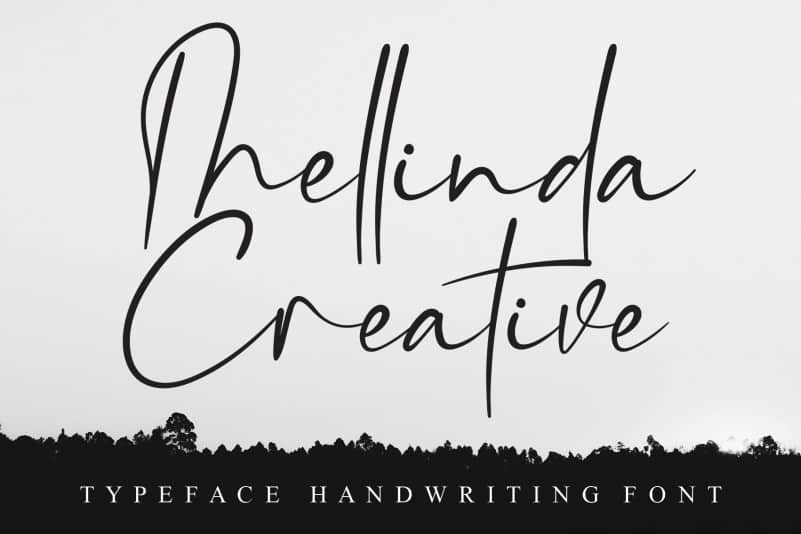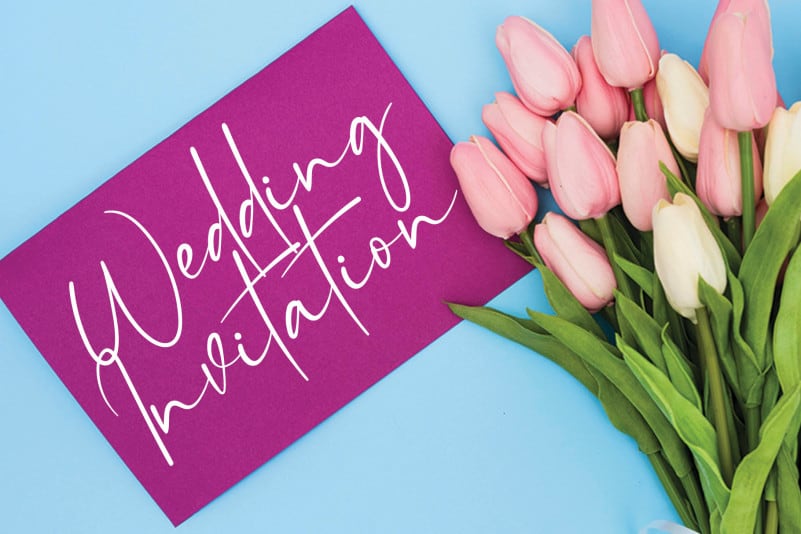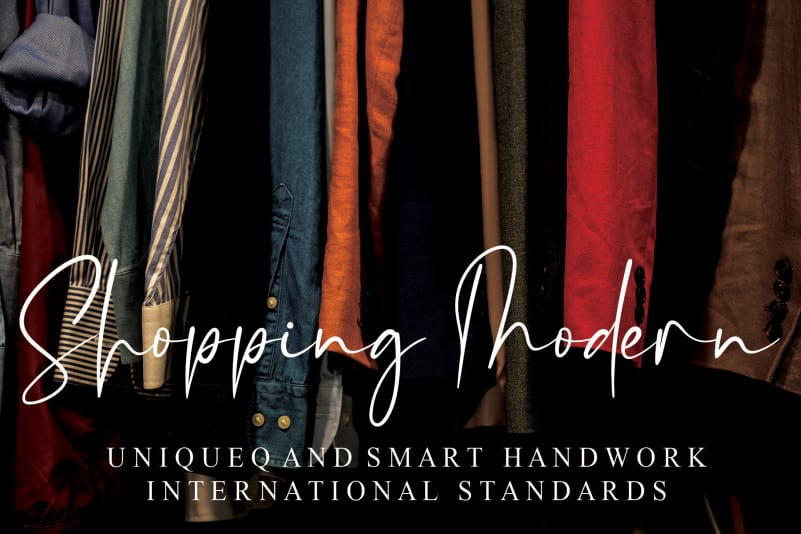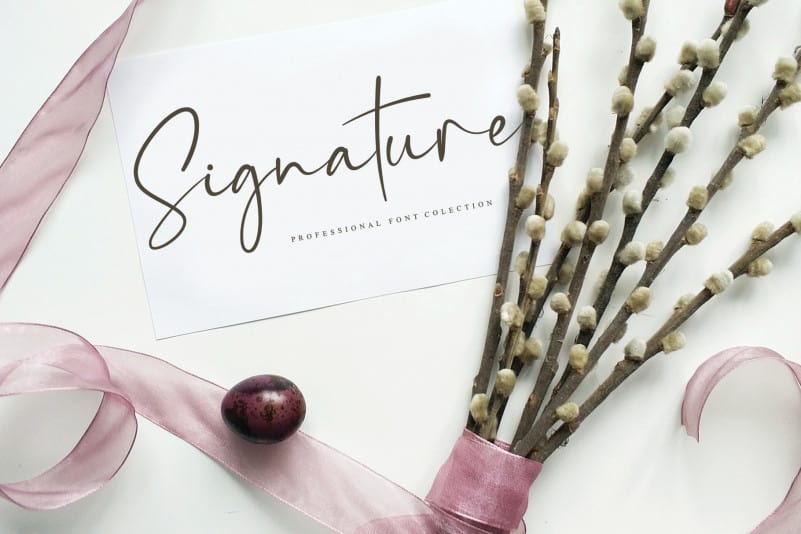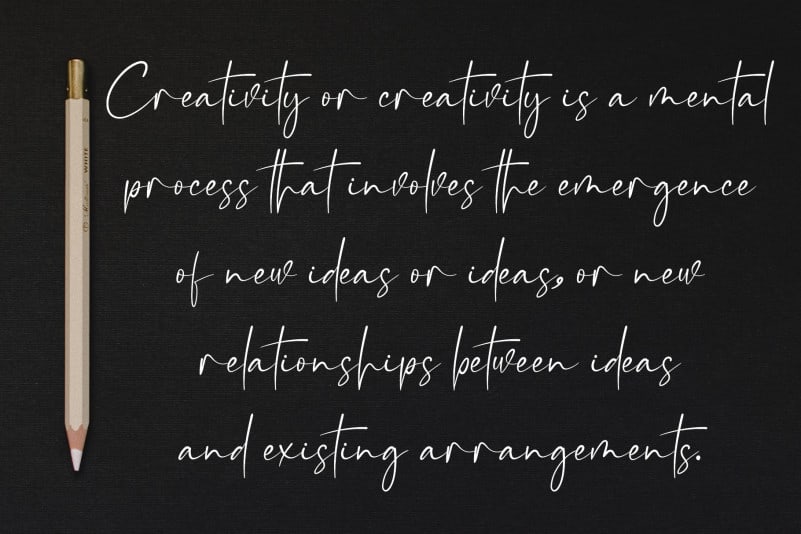
Mellinda Creative Script Font
Mellinda Creative Script Font – special creative products for you, our products will give you an extraordinary experience. the latest style letters are perfect for wall displays, wedding invitations, social media post logos, advertisements, product packaging, product designs, labels, photography, watermarks, invitations, stationery, and any project that requires taste handwriting.
The newest style letters are perfect for wall displays, wedding invitations, social media post logos,
advertisement, product packaging, product design, label, photography, watermark, invitation, writing tool,
and any project that requires handwritten taste.